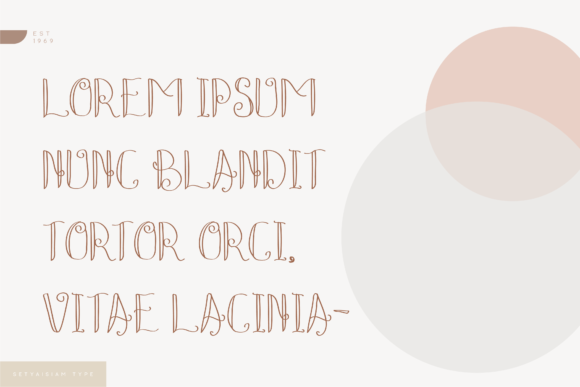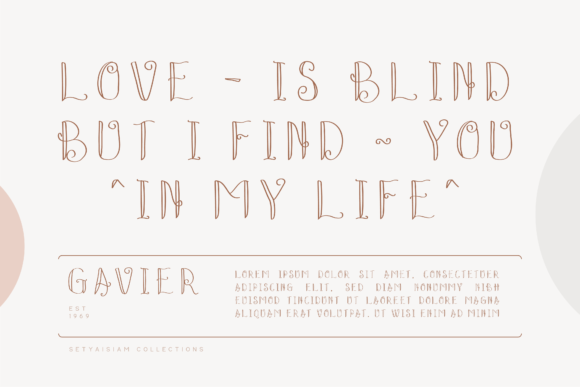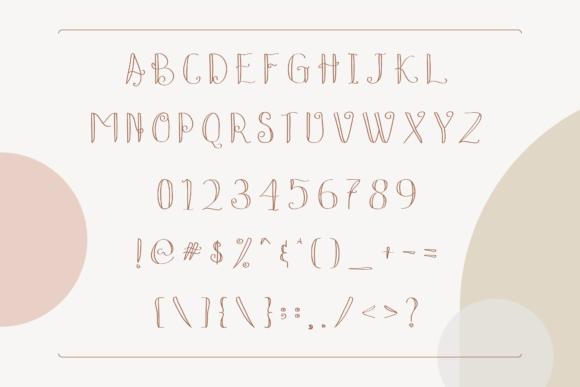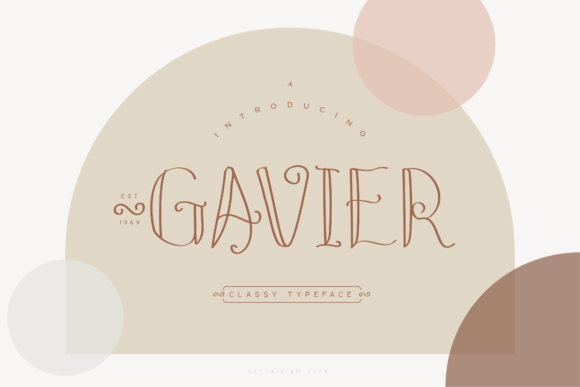
Gavier Font: Elevate Your Designs with Elegance and Sophistication
Are you looking for a font that exudes refinement, class, and distinctiveness? Look no further than the Gavier Font. This stunning display font is perfect for designers and crafters who want to add a touch of elegance to their creations. With its ravishing style, Gavier Font is ideal for a wide range of projects, from wedding invitations and stationery art to social media posts and more.
The Characteristics of Gavier Font
Gavier Font is a unique and sophisticated typeface that boasts a range of characteristics that set it apart from other fonts. Its distinct style is marked by:
• Refined lines and curves: Gavier Font features smooth, flowing lines and curves that give it a luxurious and high-end feel.
• Elegant letterforms: Each letter in the Gavier Font is carefully crafted to convey a sense of sophistication and refinement.
• High legibility: Despite its ornate style, Gavier Font remains highly legible, making it perfect for use in a variety of contexts.
Uses for Gavier Font
Gavier Font is an incredibly versatile typeface that can be used in a wide range of projects, including:
• Wedding invitations: Add a touch of elegance to your wedding stationery with Gavier Font.
• Stationery art: Create beautiful, eye-catching stationery art with Gavier Font.
• Social media posts: Elevate your social media posts with the sophisticated style of Gavier Font.
• Packaging design: Use Gavier Font to add a touch of luxury to your packaging design.
• Branding and advertising: Gavier Font is perfect for creating high-end branding and advertising materials.
Why Choose Gavier Font?
There are many reasons why designers and crafters choose Gavier Font for their projects. Here are just a few:
• Unique style: Gavier Font boasts a unique and distinctive style that will set your designs apart from the crowd.
• High-quality: Gavier Font is a high-quality typeface that is designed to produce stunning results.
Tips for Using Gavier Font
To get the most out of Gavier Font, here are a few tips to keep in mind:
• Use it sparingly: Gavier Font is a bold and eye-catching typeface, so use it sparingly to avoid overwhelming your design.
• Experiment with colors: Gavier Font looks stunning in a range of colors, so don’t be afraid to experiment and find the perfect hue for your design.
• Pair it with other fonts: Gavier Font pairs well with a range of other fonts, so try pairing it with a sans-serif font for a striking contrast.
Font Name Gavier Font
Author setyaisiam
Gavier Font is a stunning display font that is perfect for designers and crafters who want to add a touch of elegance and sophistication to their creations. With its unique style, high legibility, and versatility, Gavier Font is an excellent choice for a wide range of projects. Whether you’re creating wedding invitations, stationery art, social media posts, or more, Gavier Font is sure to impress.